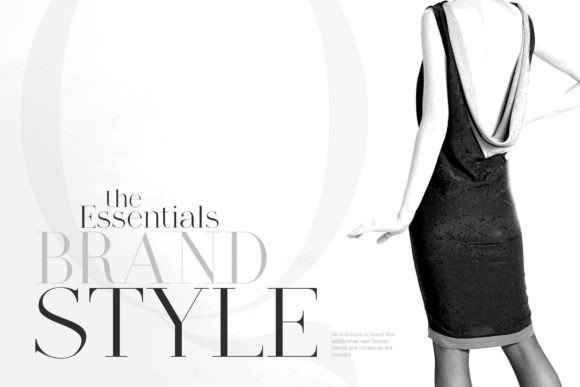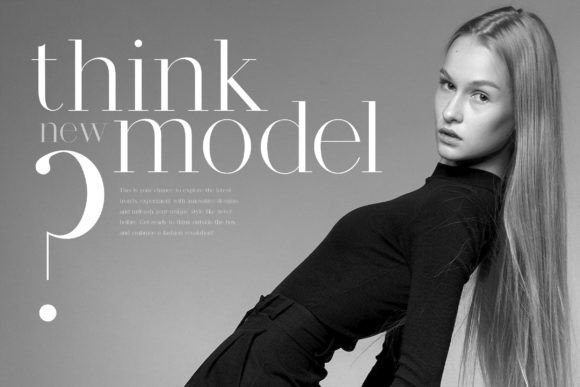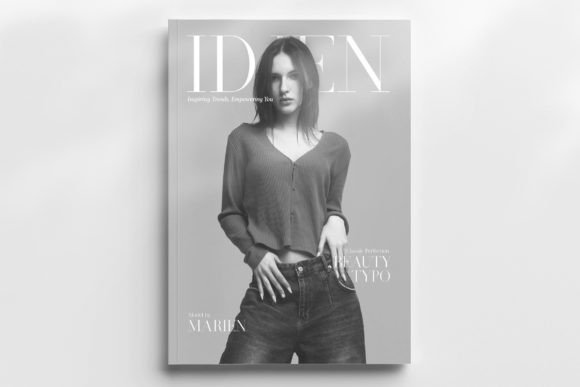
Introduction to Qara Font
Qara is a breathtaking font that exudes elegance, luxury, and an unparalleled sense of fashion.
With its sleek and refined design, Qara captures attention and adds a touch of sophistication to any project What you will get : * OTF * Multilingual Support.
Key Features of Qara Font
Why Choose Qara Font?
Qara Font offers exceptional quality and versatility, making it a valuable addition to your design toolkit. Whether you’re creating for personal projects or commercial use, Qara Font delivers professional results.